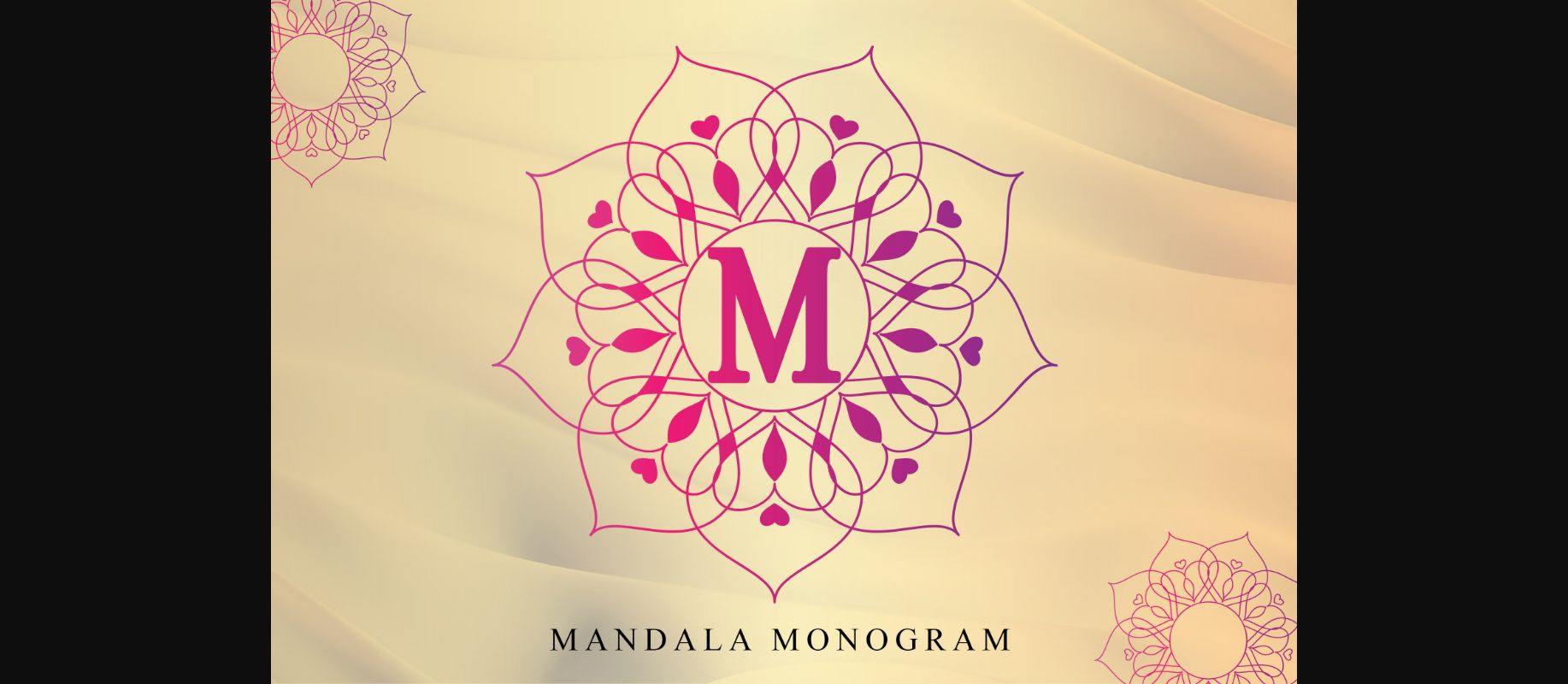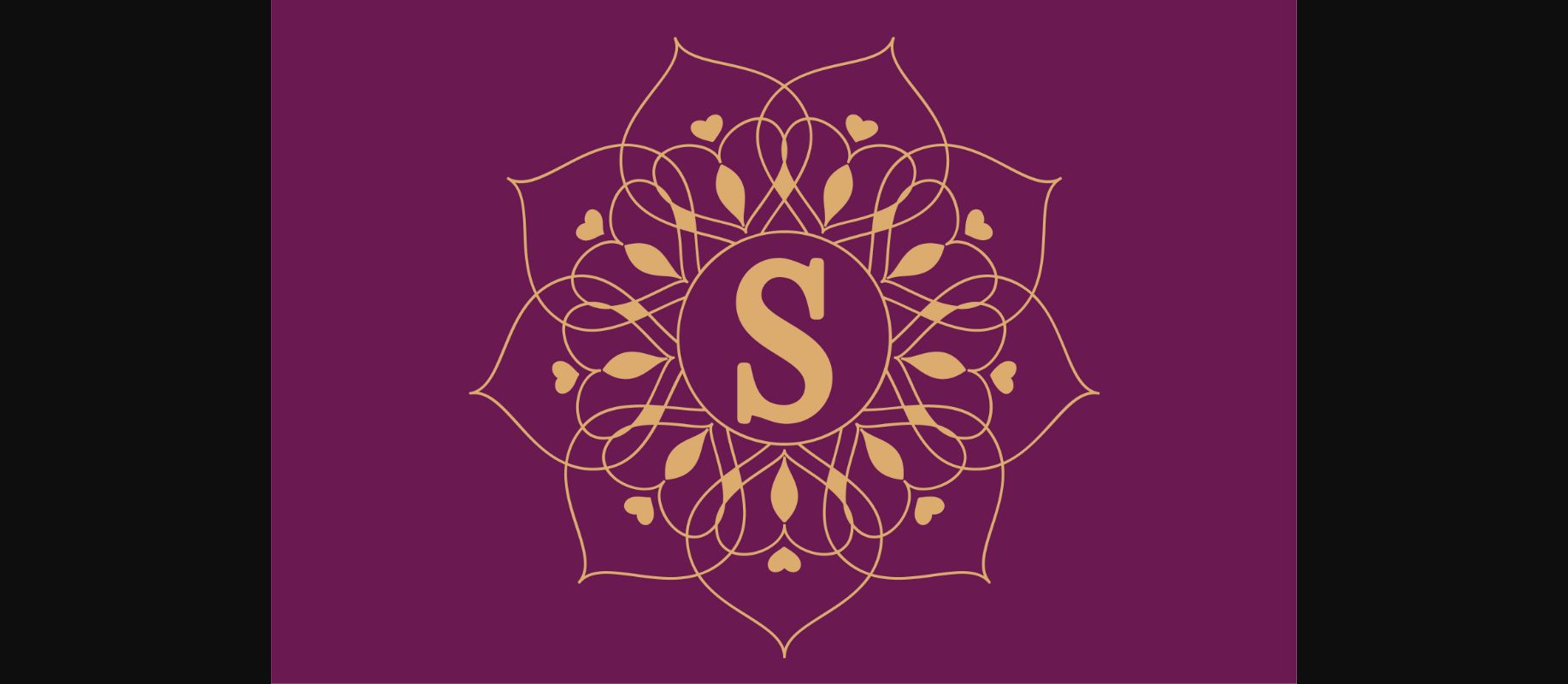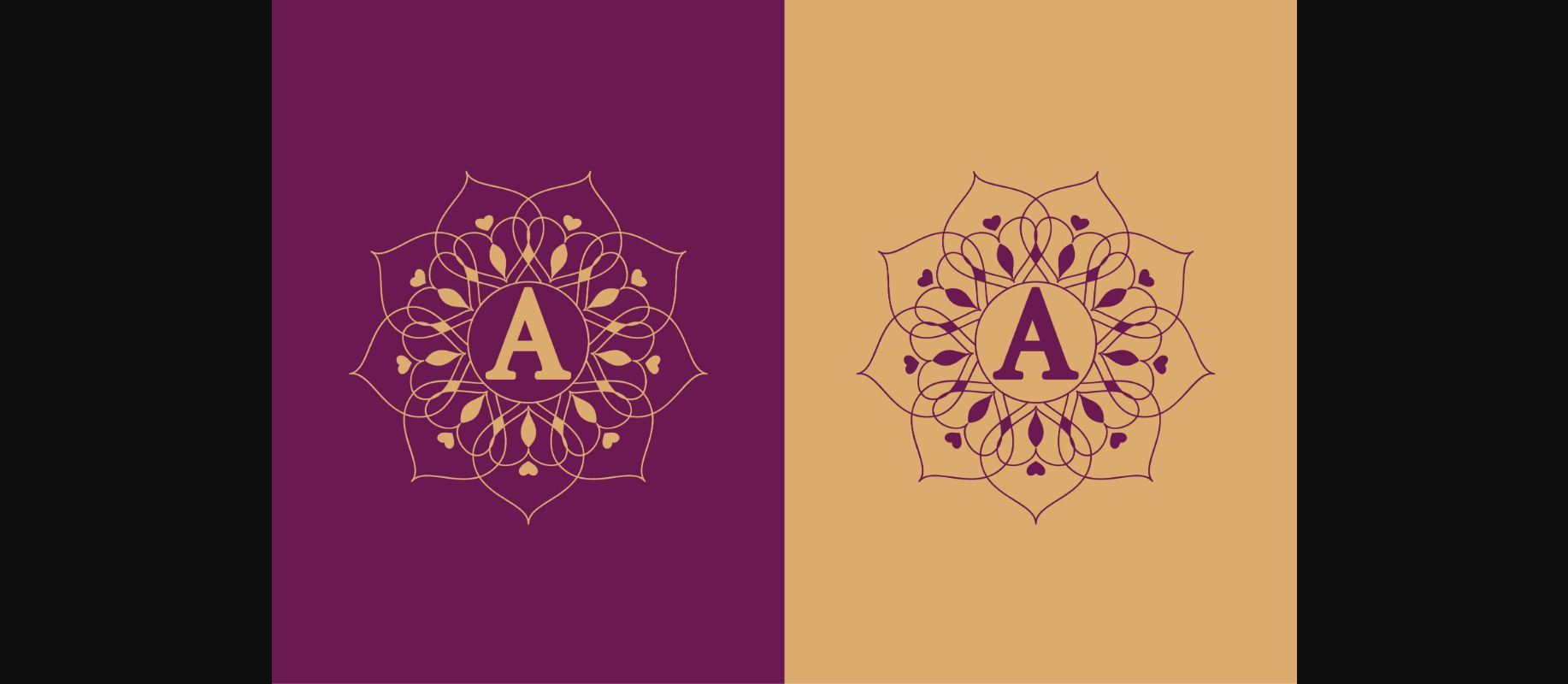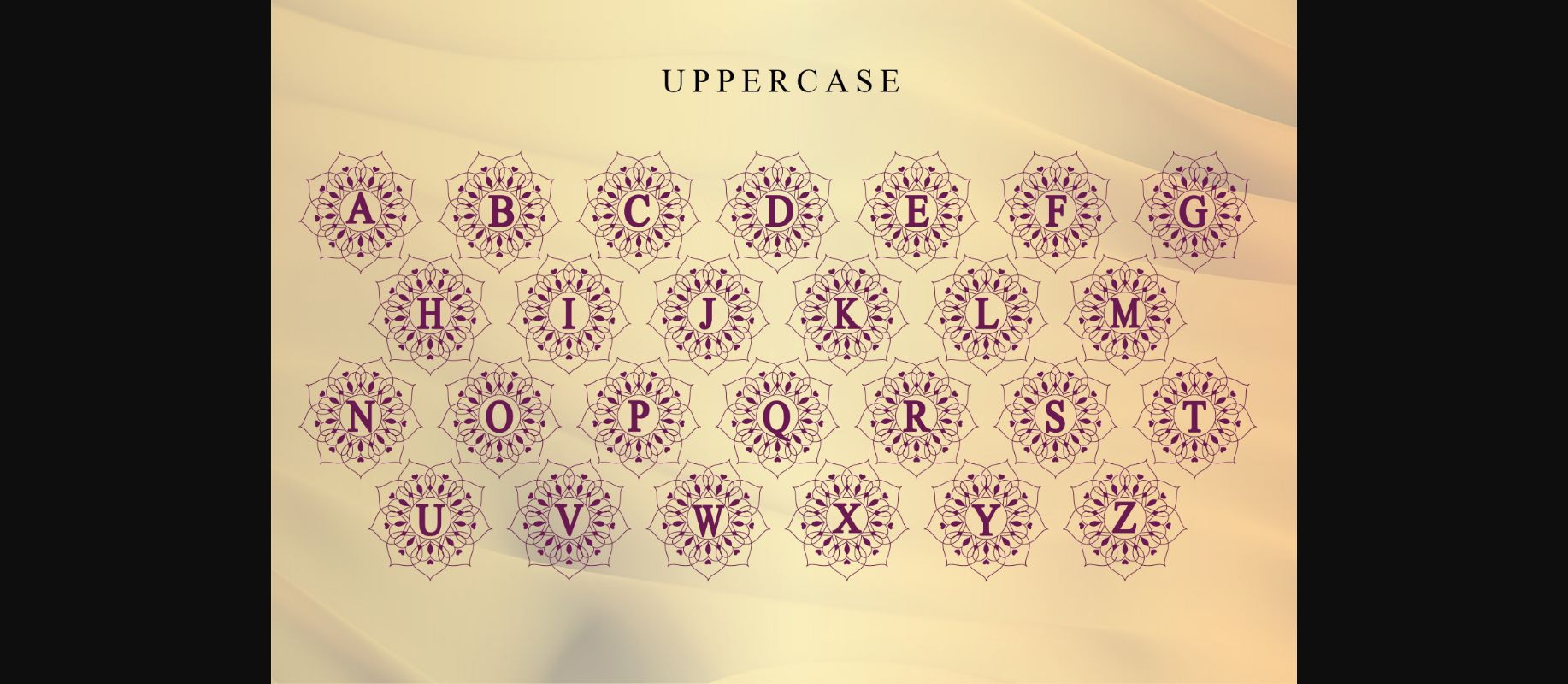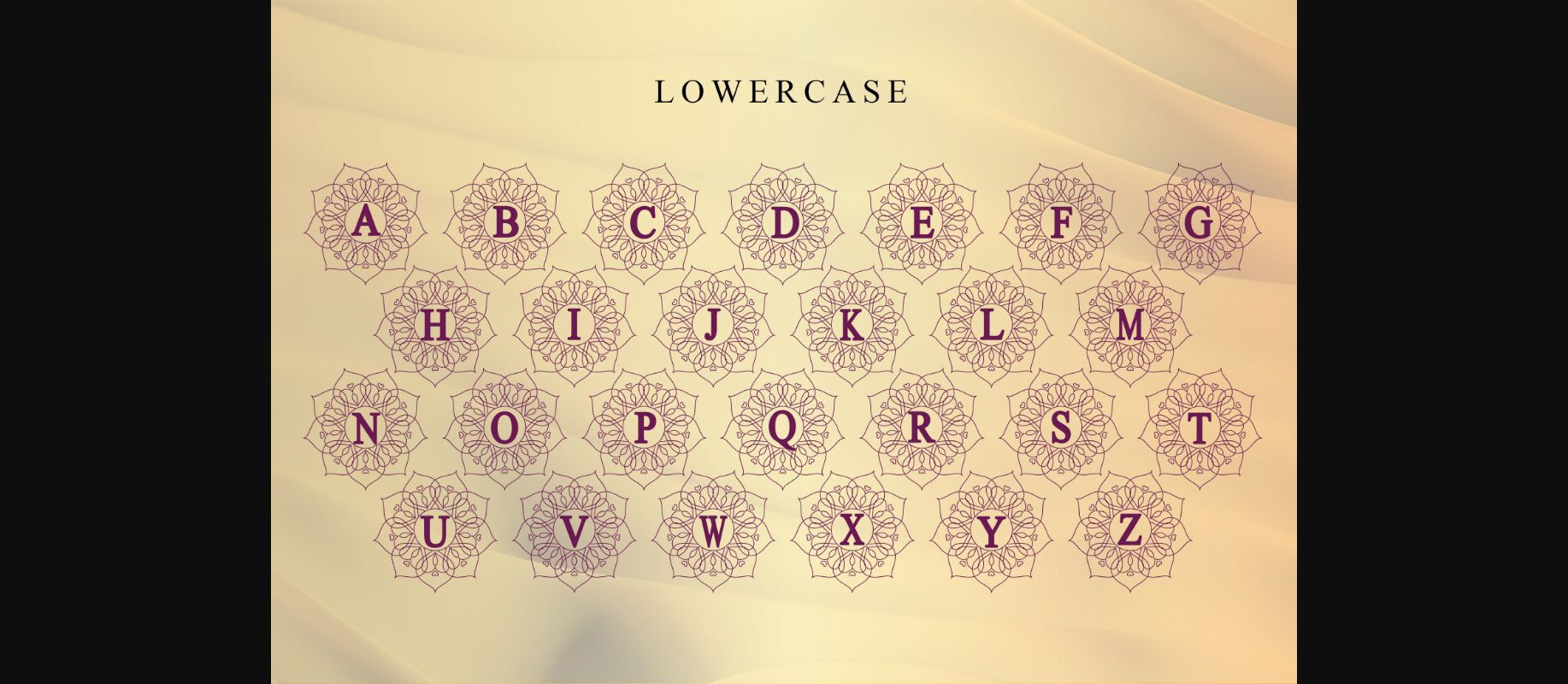
Mandala Monogram Font
About Mandala Monogram Font
Mandala Monogram is a unique and intricate monogram decorative font. Add this elegant font to each of your love letters, wedding invitations, or favorite design ideas, and you will be astounded by the outcome. Unique and distinct, this font will match a wide range of design ideas, both formal and personal.